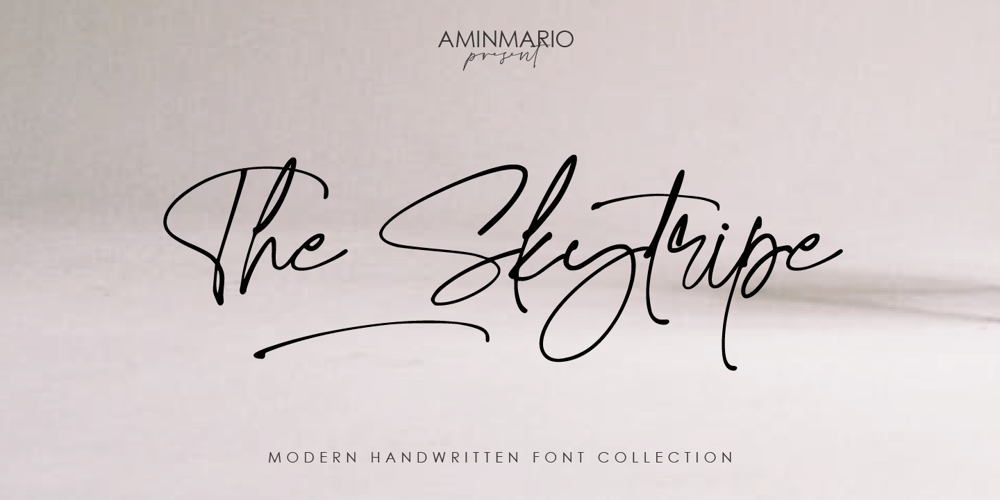
The Skytripe Font Family was designed by Amin Maryono and published by Aminmario Studio. The Skytripe contains 2 styles and family package options. IntroducingThe Skytripe font is modern and elegant handwritten with a quick stroke pen effect. This font was created to look as close to a natural handwritten script, as possible by including lowercase alternates, ligature and underlines. Perfect for any awesome projects that need hand writing taste.Comes with regular and italic. With built in Opentype features, this script comes to life as if you were writing it yourself.Don’t hesitate if you have any questions. Thanks for checking out this font. I hope you enjoy it!AminMario